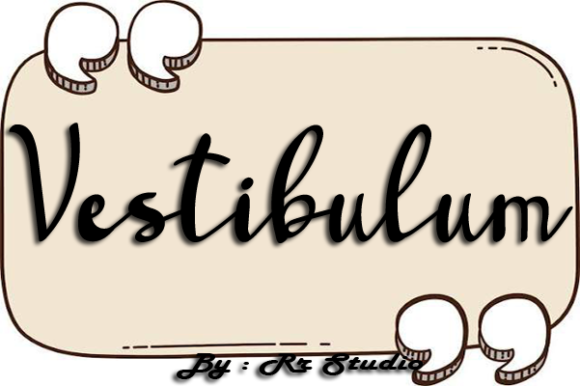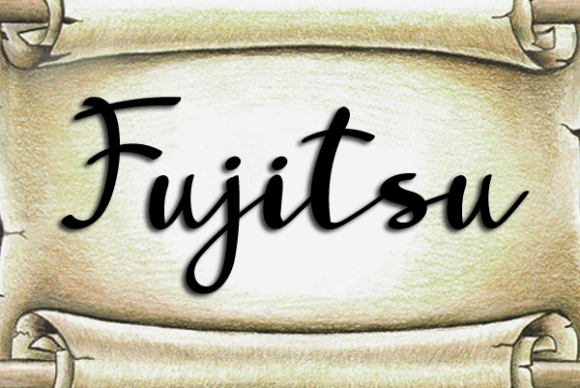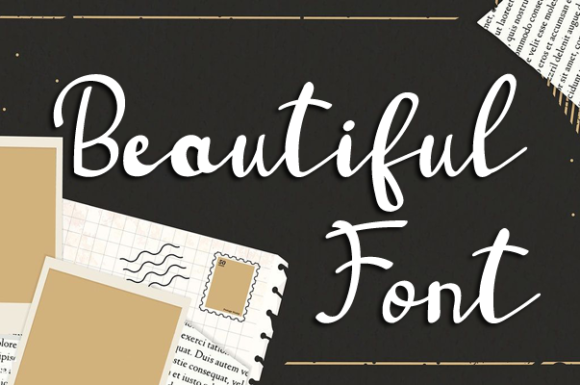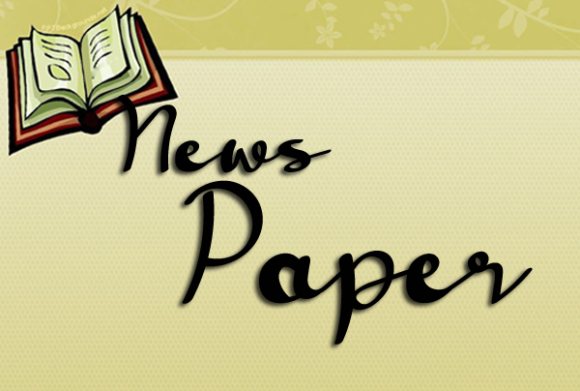
Script Fonts Vestibulum Font 0 148 FacebookTwitterPinterestWhatsApp 1 of 4 Vestibulum Font Poster 2... Vestibulum Font Poster 3... Vestibulum Font Poster 4... About Vestibulum Font Vestibulum is a stylish and incredibly elegant script font. It looks stunning on wedding invitations, thank you cards, quotes, greeting cards, logos, business cards and every other design which needs a handwritten touch. DOWNLOAD NOW